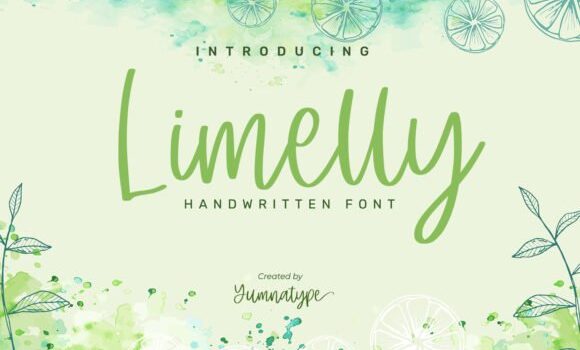
limelly
Limelly Font – Free Download Introduction to Limelly Font Limelly is an elegant handwritten font made for any professional project branding. 📸 Preview Gallery 6 images 📌 Product Name Limelly Font 👤 Author Yumna_Type 📂 Category Explore ⬇️ Download Limelly